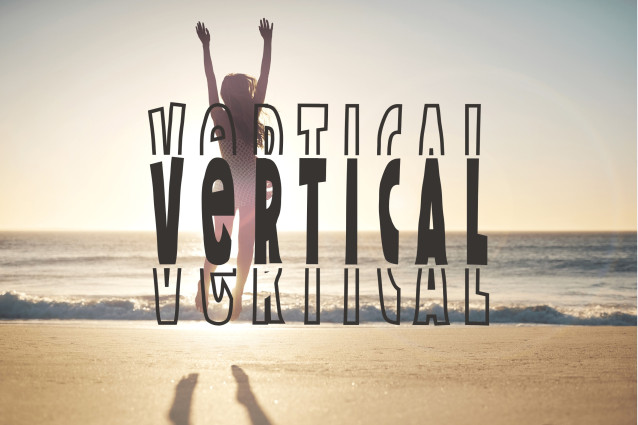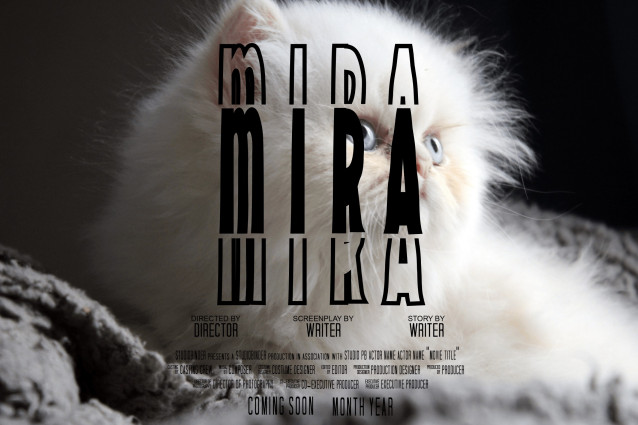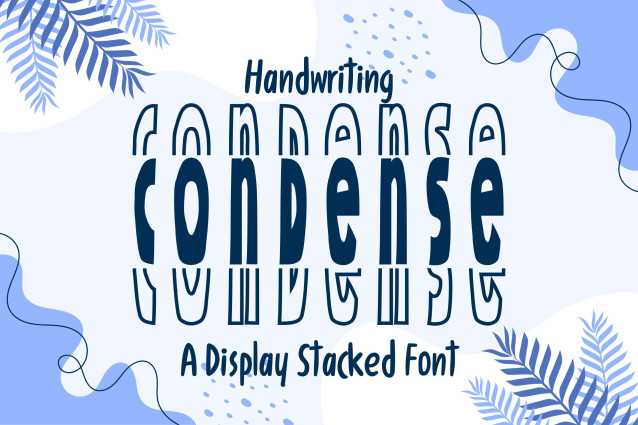
Handwriting Condense Stacked Font
Handwriting Condense Stacked is a vertically arranged, space-savvy handwritten font that adds structure and character to tight compositions. With its narrow, neatly stacked letters, this font brings a modern handwritten vibe to logos, packaging, social media content, and typographic posters that need a compact yet stylish impact.